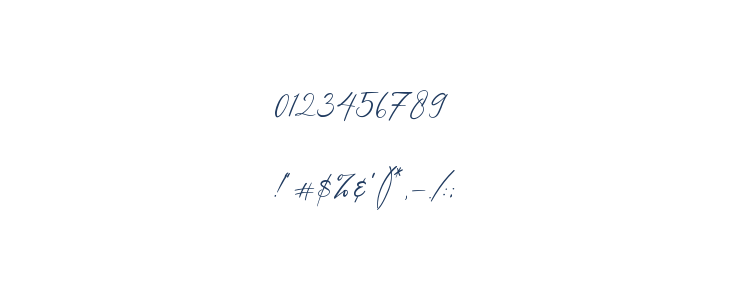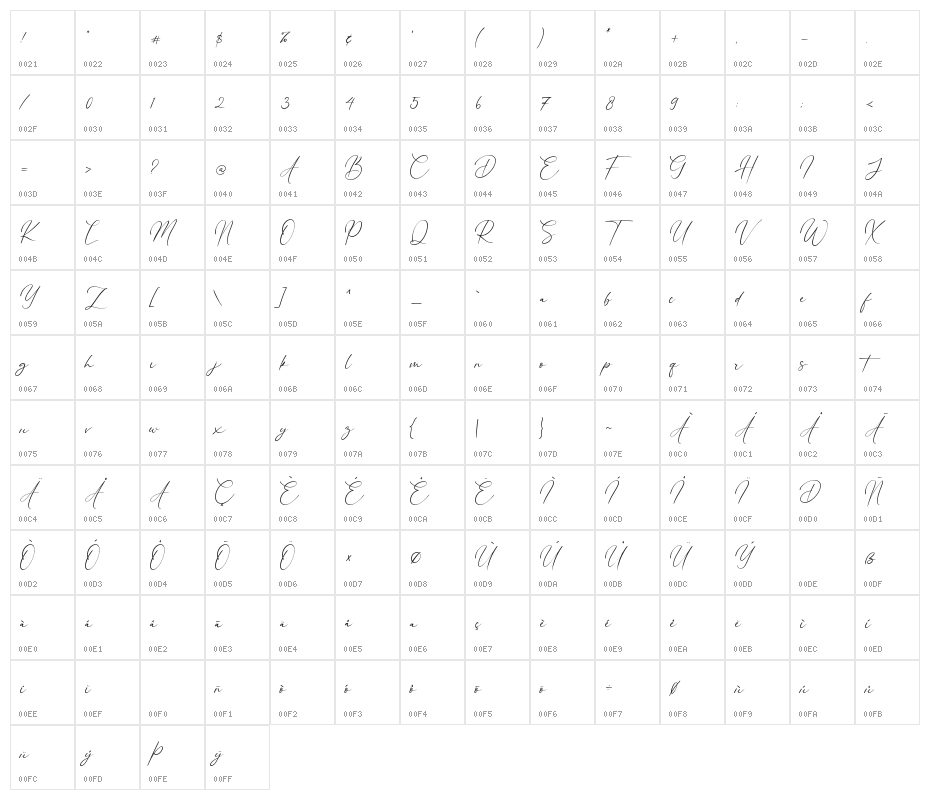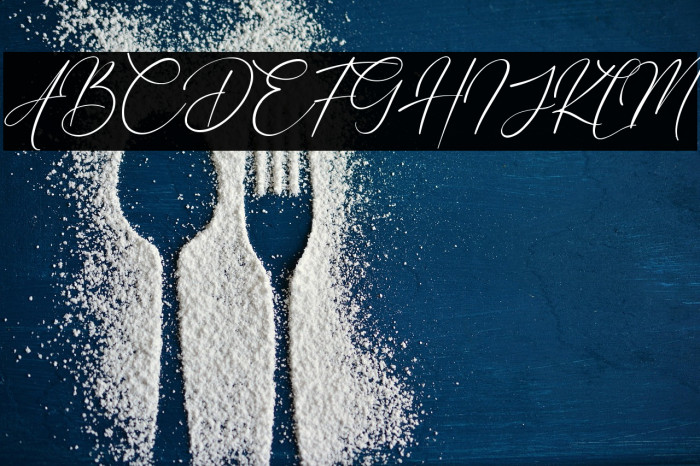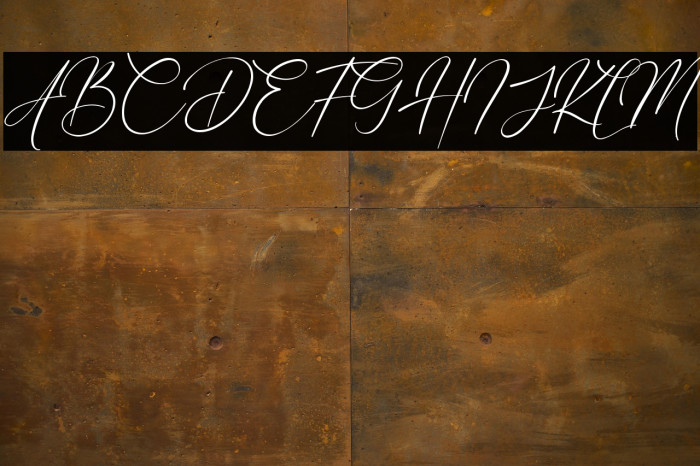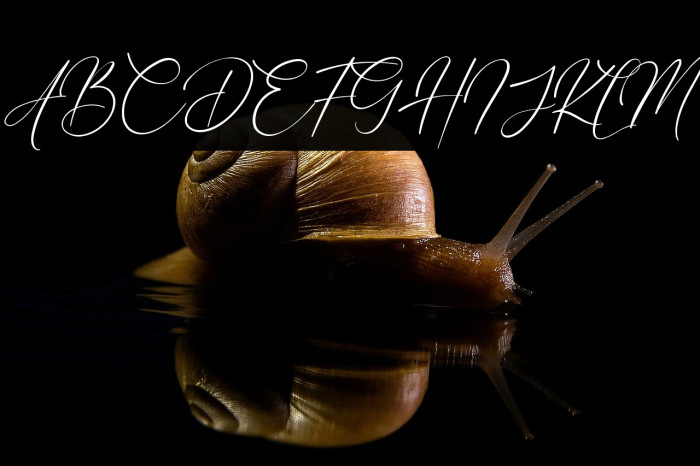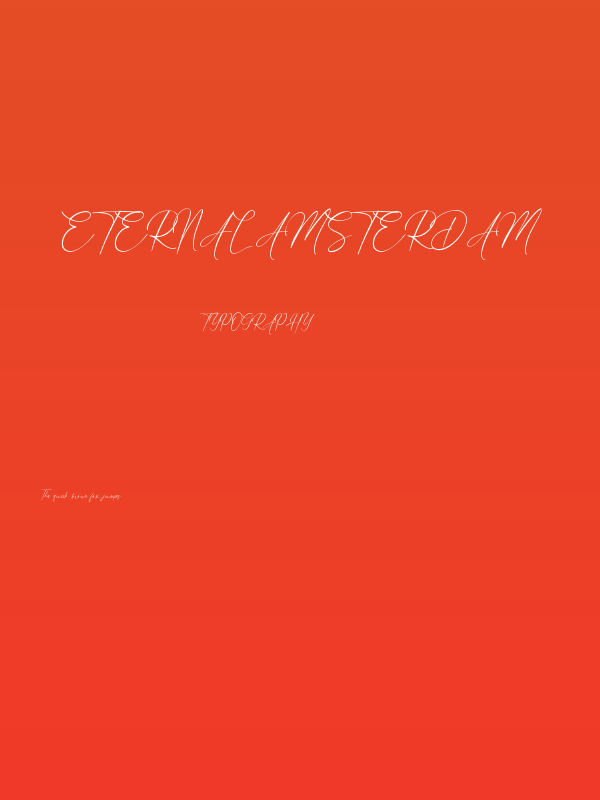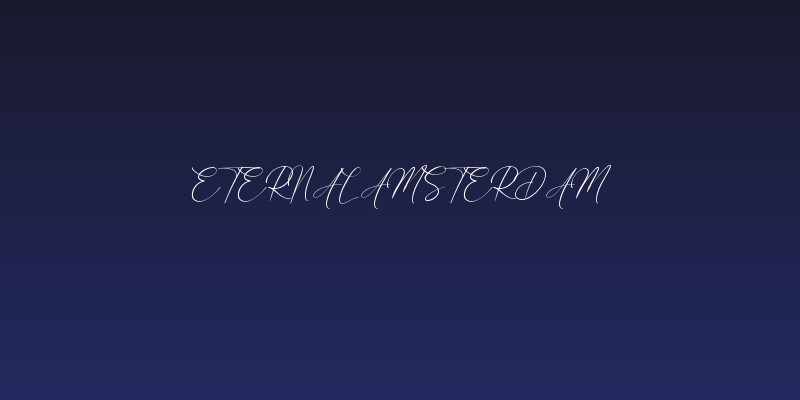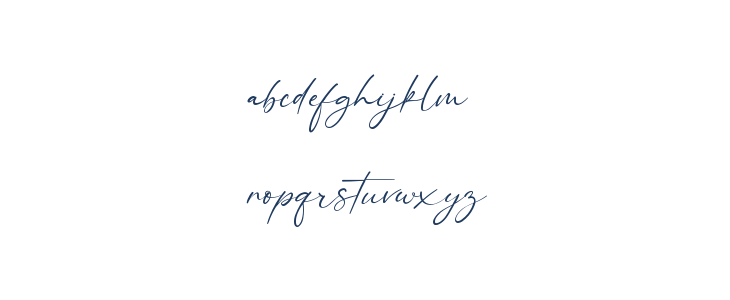
Eternal Amsterdam Font
Eternal Amsterdam Description
This font exudes elegance and sophistication with its flowing, cursive style. The letters are intricately designed with smooth curves and delicate strokes, giving it a handwritten appearance. The uppercase letters are particularly ornate, featuring sweeping lines and loops that add a touch of flair. The lowercase letters maintain a consistent style, with a slightly more subdued elegance. The numerals and special characters are crafted to match the overall aesthetic, ensuring a cohesive look across all text. This font is perfect for projects that require a personal, artistic touch.
| Overall Style | Elegant, Artistic |
| Proposed Projects | Ideal for wedding invitations, greeting cards, personal branding, and artistic projects. |